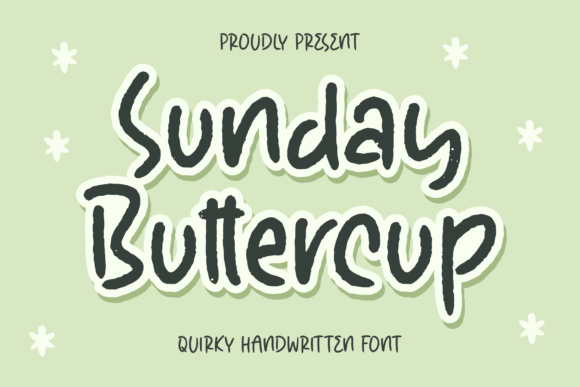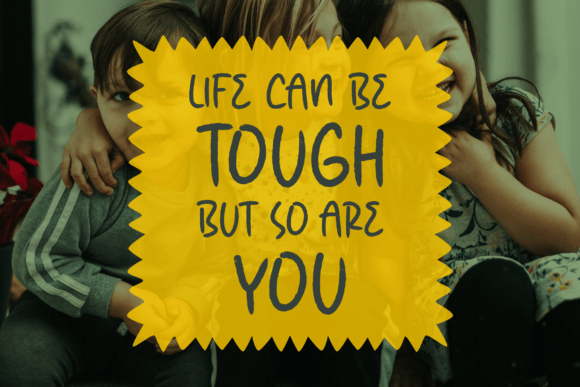
About Sunday Buttercup Font
Sunday Buttercup, a quirky handwritten font, injects a playful and unique vibe into your projects, making it suitable for a diverse range of creative applications. Crafted with a sense of whimsy and charm, this font is designed to enhance the aesthetics of various design projects. Whether you’re working on logos, branding, homeware designs, product packaging, or any other creative endeavor, Sunday Buttercup adds a beautiful script taste to your work.
The quirkiness of Sunday Buttercup is its defining feature, making it stand out in projects that demand a touch of playfulness. From mugs and shopping bags to book covers and name cards, this font adapts seamlessly, adding a distinctive and charming script style.
The versatility of Sunday Buttercup extends to special events such as invitations, greeting cards, and labels. Its handwritten and quirky letters bring a personalized and joyful aesthetic, creating designs that are not only visually appealing but also exude a lighthearted and friendly vibe.
Incorporate Sunday Buttercup into your creative projects, and experience how it transforms ordinary designs into delightful expressions of style. Whether it’s branding materials, product packaging, or any lovely project that needs a script taste with a touch of quirkiness, Sunday Buttercup is the font that brings a playful and unique character to your designs. Let Sunday Buttercup be the quirky handwritten font that infuses joy and creativity into your projects, making them truly special and memorable.